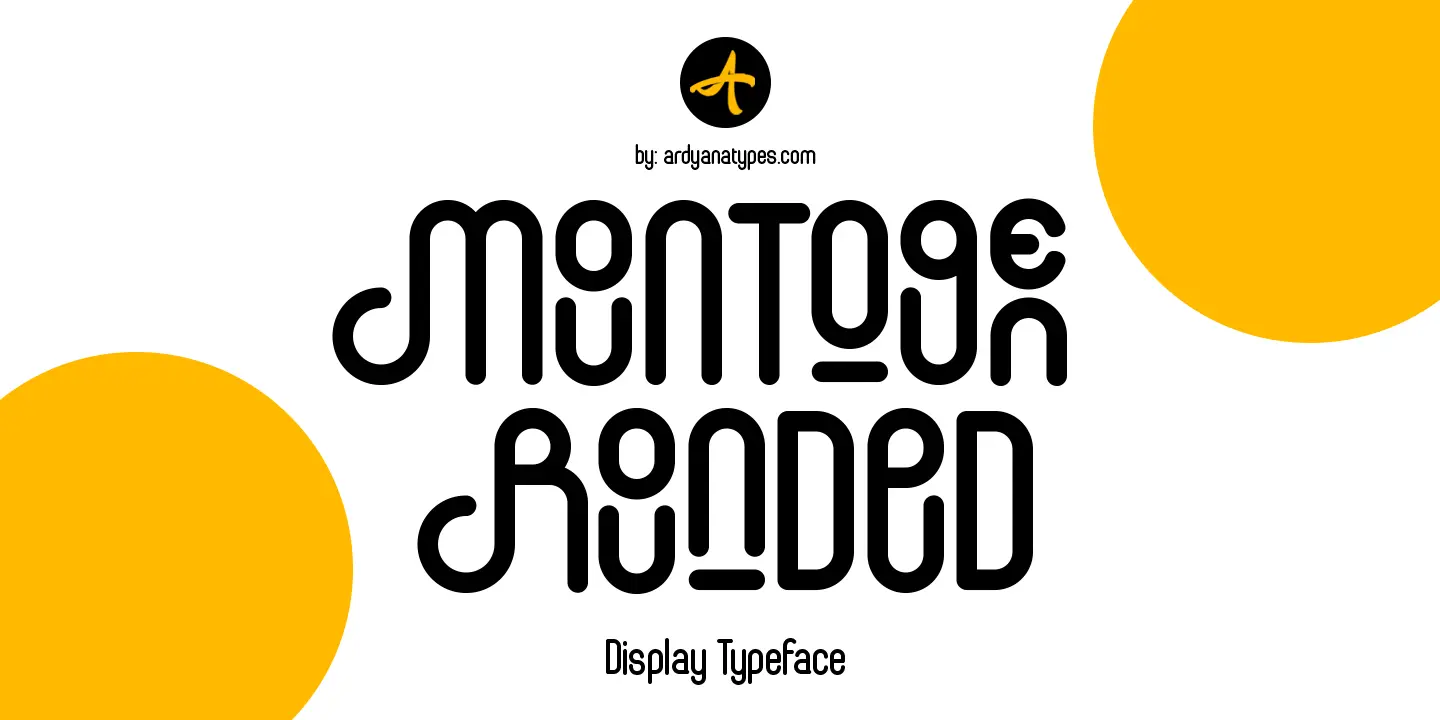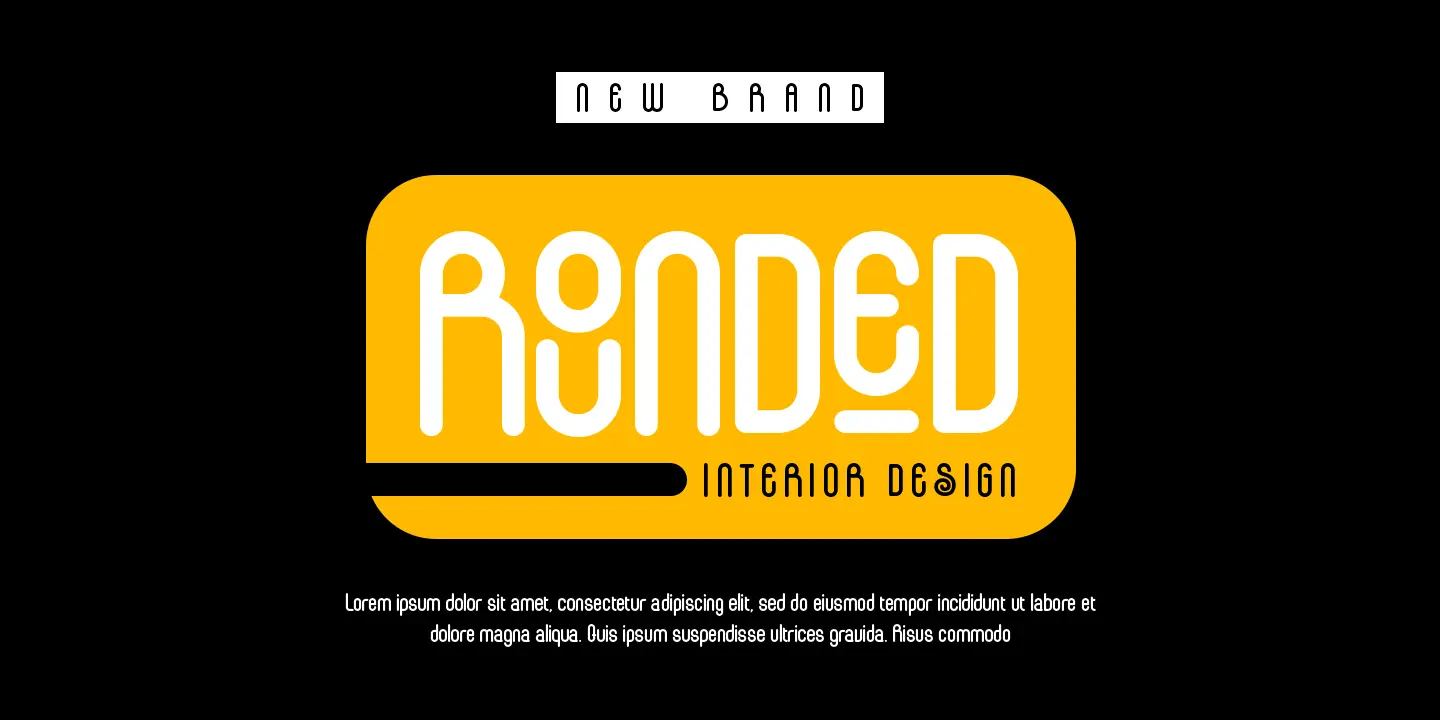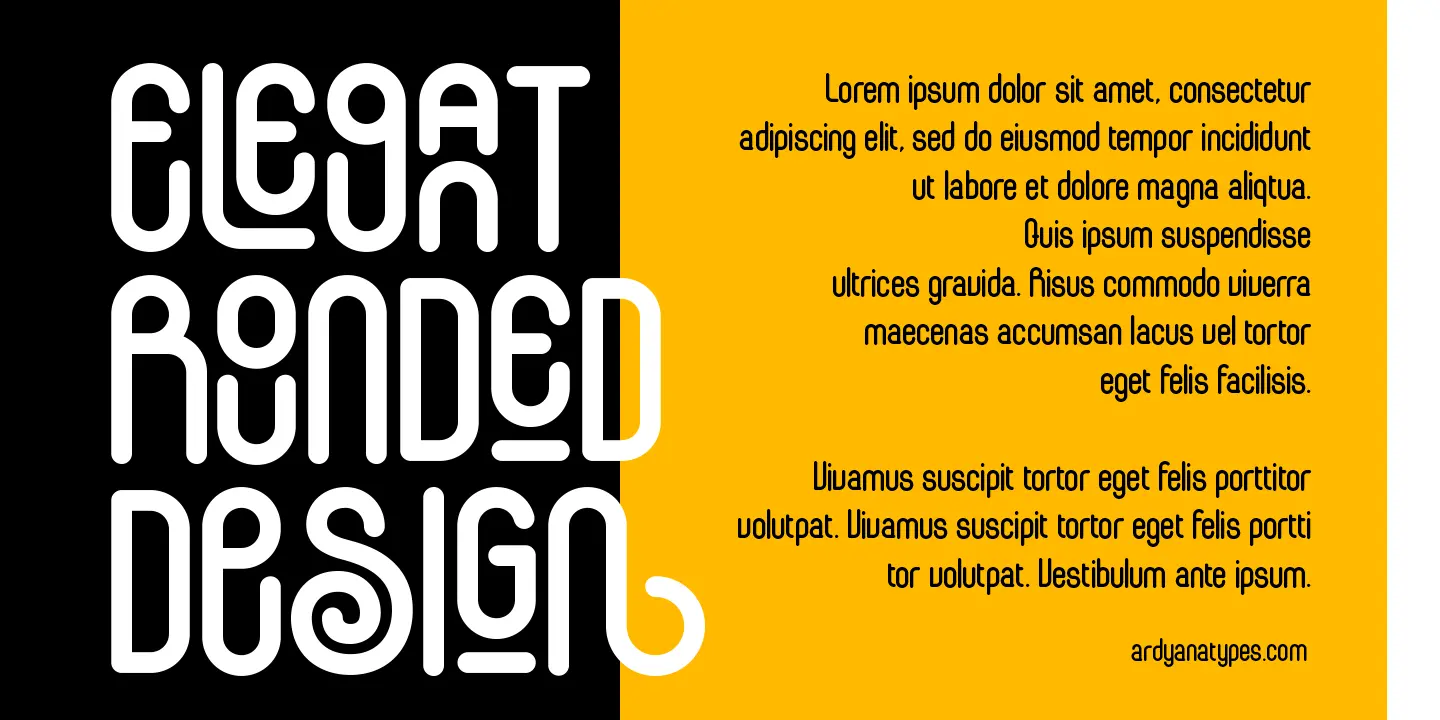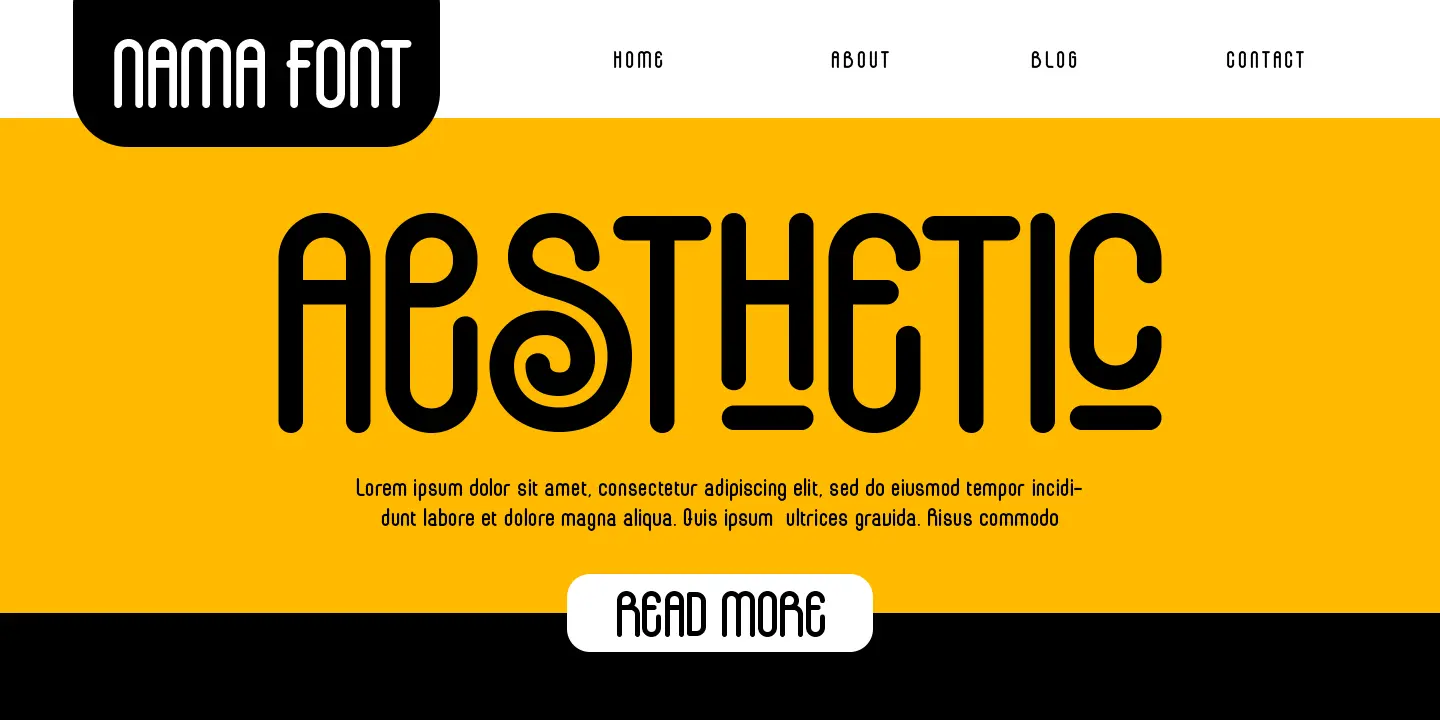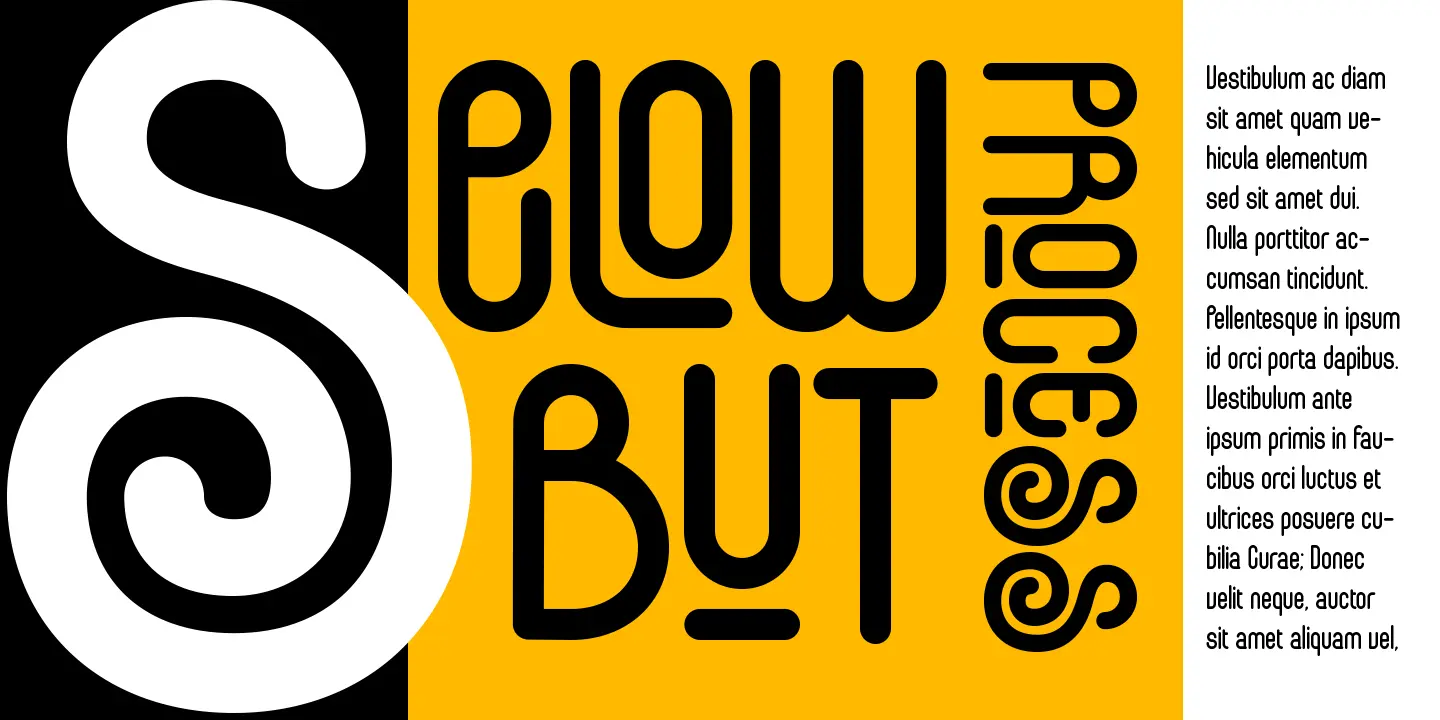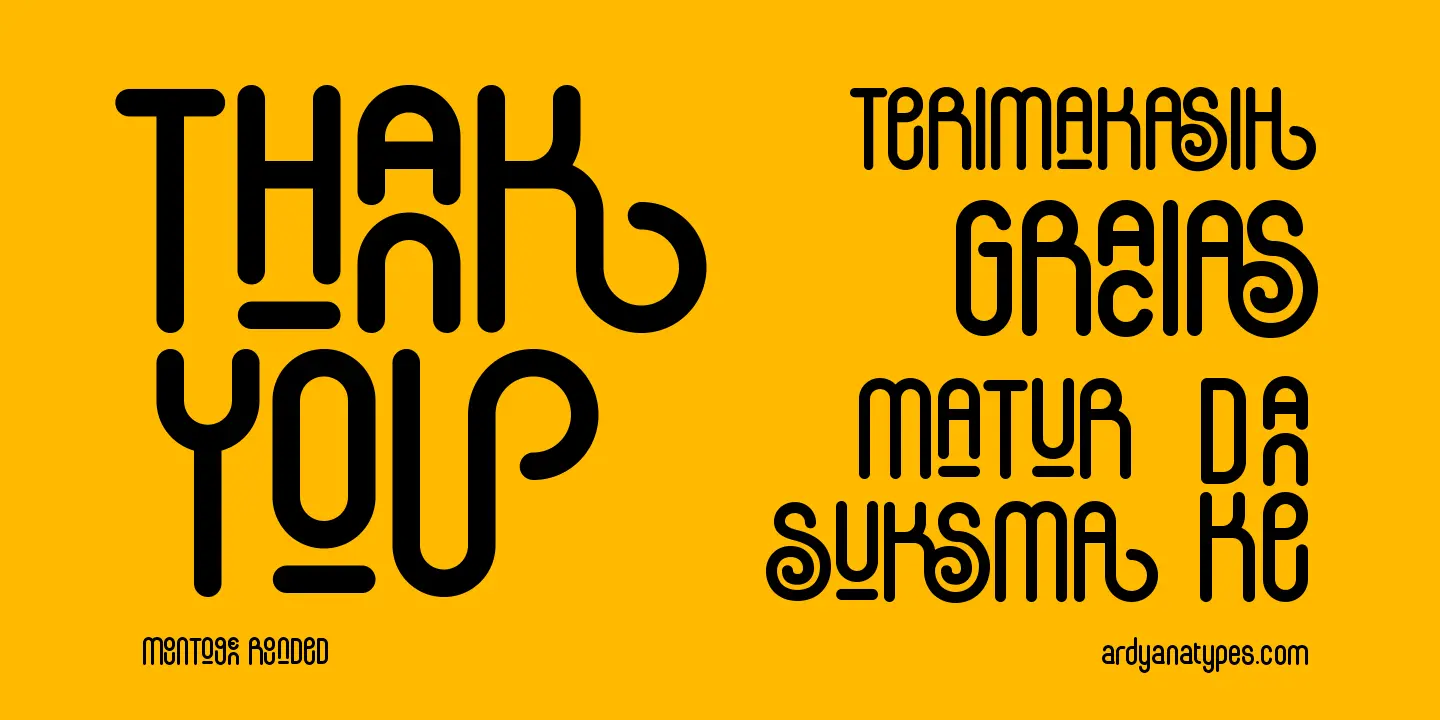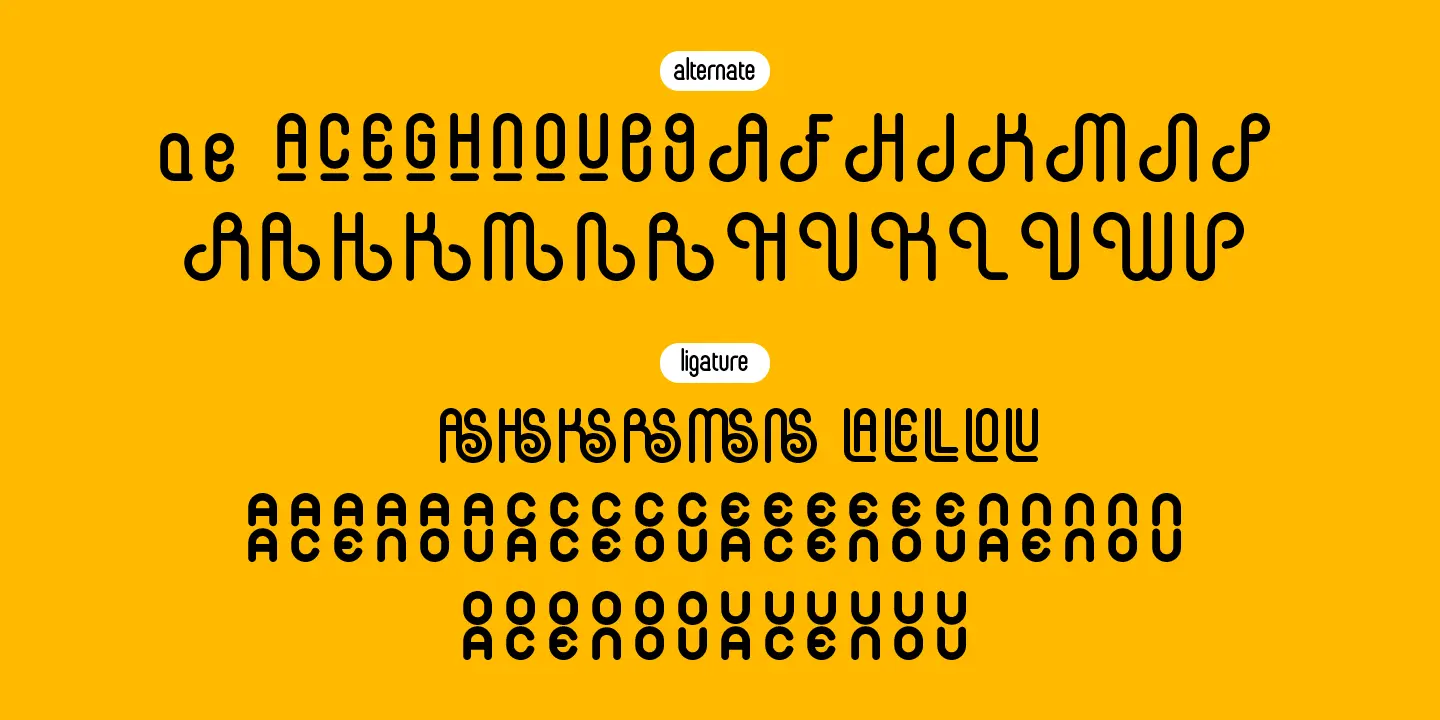
Mountogen Rounded
Introducing Mountogen Rounded Typeface Style which has a unique and very strong characteristic that makes all designs look unique and have a modern feel. Mountogen Rounded has its own charm, so it will be very suitable to be combined with any style. Has Lots of Alternatives and ligatures to add a great interactive feel to every design. Mountogen Rounded also comes with multilingual support and is very easy to use. Mountogen Rounded is interesting to use in designs such as books, movie posters, logos, branding, business cards, and more that can be combined with Mountogen Rounded.
• AA AA
• AC AC
• AE AE
• AN AN
• AO AO
• AS AS
• AU AU
• CA CA
• CC CC
• CE CE
• CO CO
• CU CU
• EA EA
• EC EC
• EE EE
• EN EN
• EO EO
• EU EU
• HS HS
• KS KS
• LA LA
• LE LE
• LL LL
• LO LO
• LU LU
• MS MS
• NA NA
• NE NE
• NN NN
• NO NO
• NS NS
• NU NU
• OA OA
• OC OC
• OE OE
• ON ON
• OO OO
• OU OU
• RS RS
• UA UA
• UC UC
• UE UE
• UN UN
• UO UO
• UU UU